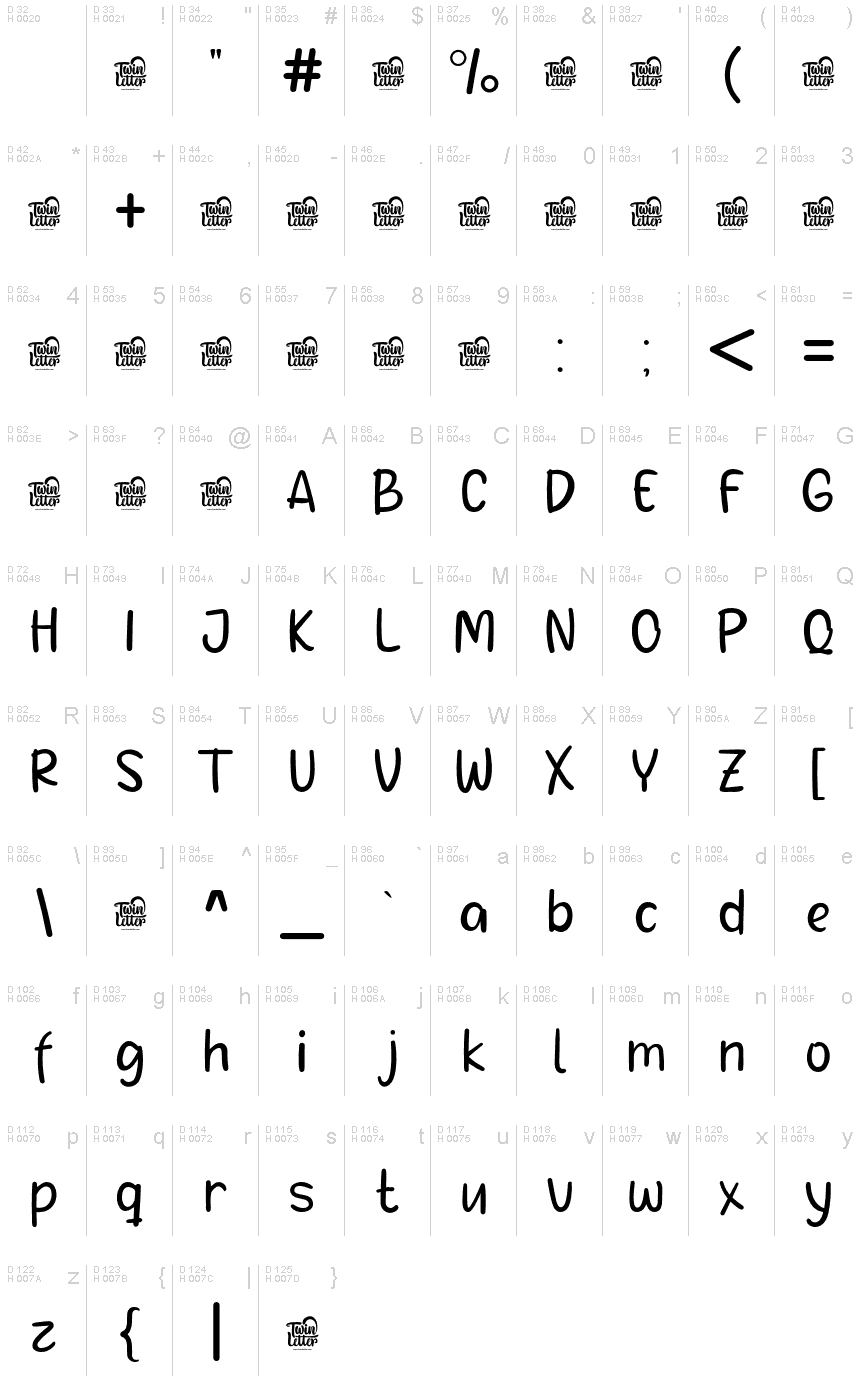
Gefuh-Thin
Gefuh семейство состоит из 3 шрифты
Gefuh Thin is a stunning semi-light handwritten font designed by twinletter. This unique typeface boasts an elegant and sophisticated style that is perfect for a variety of projects. Whether you're designing wedding invitations, creating social media graphics, or developing branding materials for a luxury brand, Gefuh Thin will elevate your designs to the next level. Its delicate and refined lines are sure to capture attention and leave a lasting impression on your audience. From fashion to beauty, food to travel, this versatile font can be used for any project that requires a touch of sophistication and elegance.